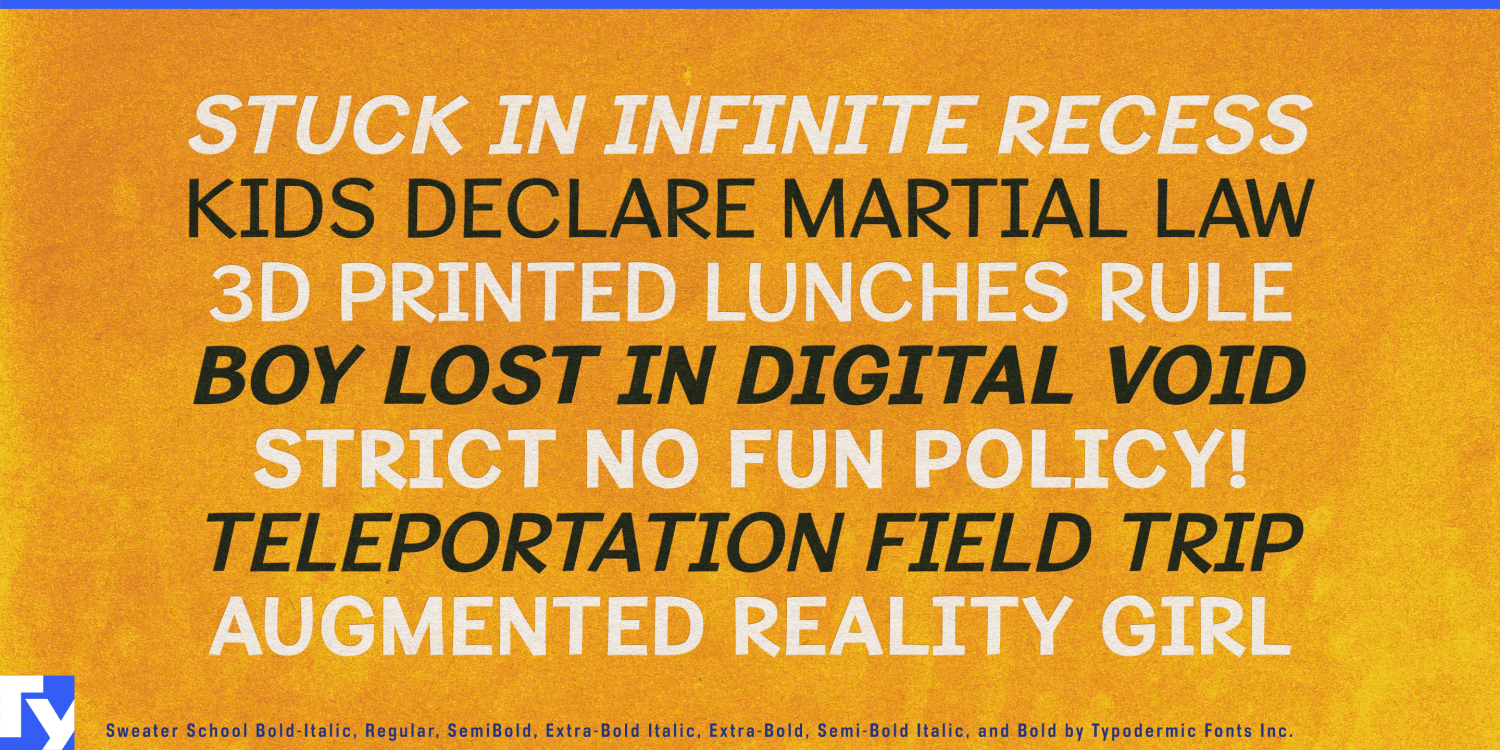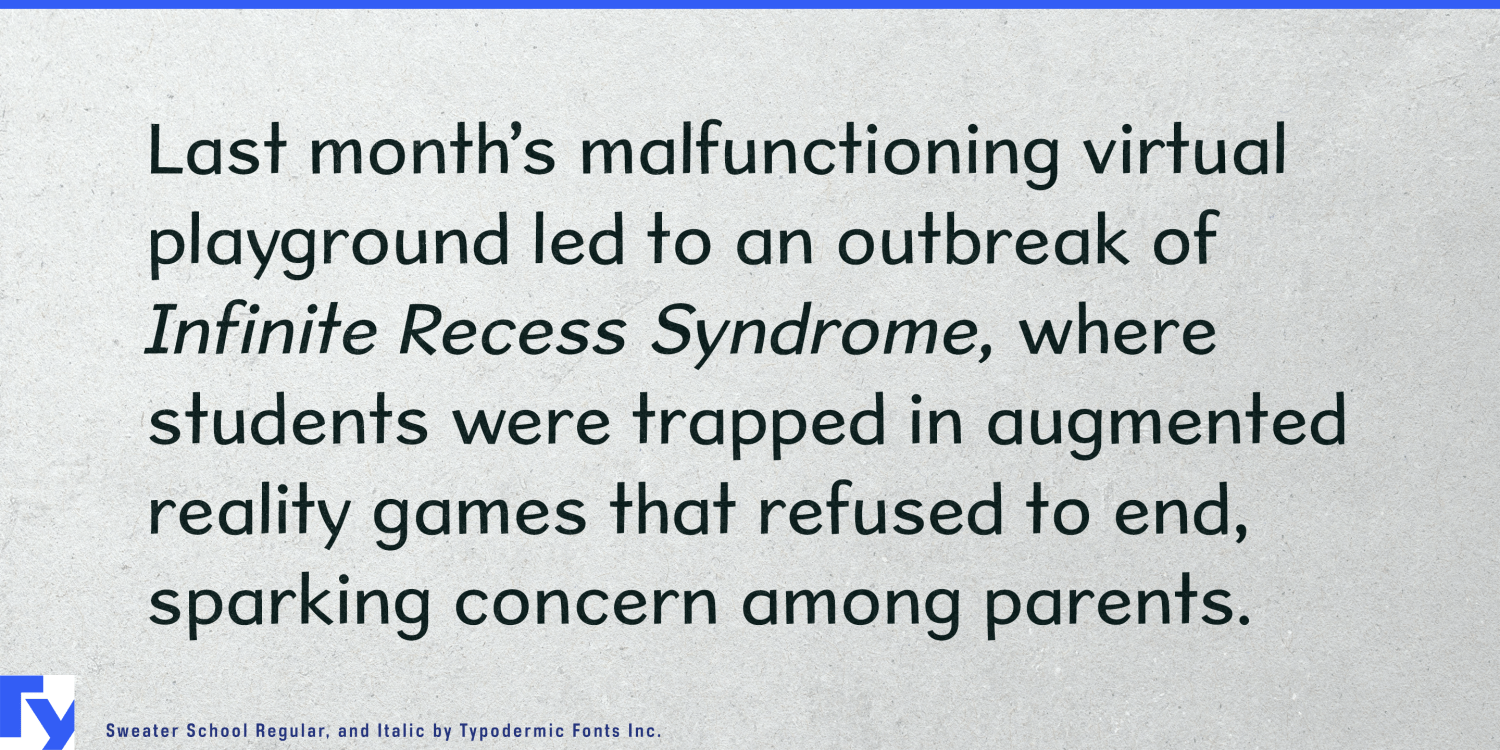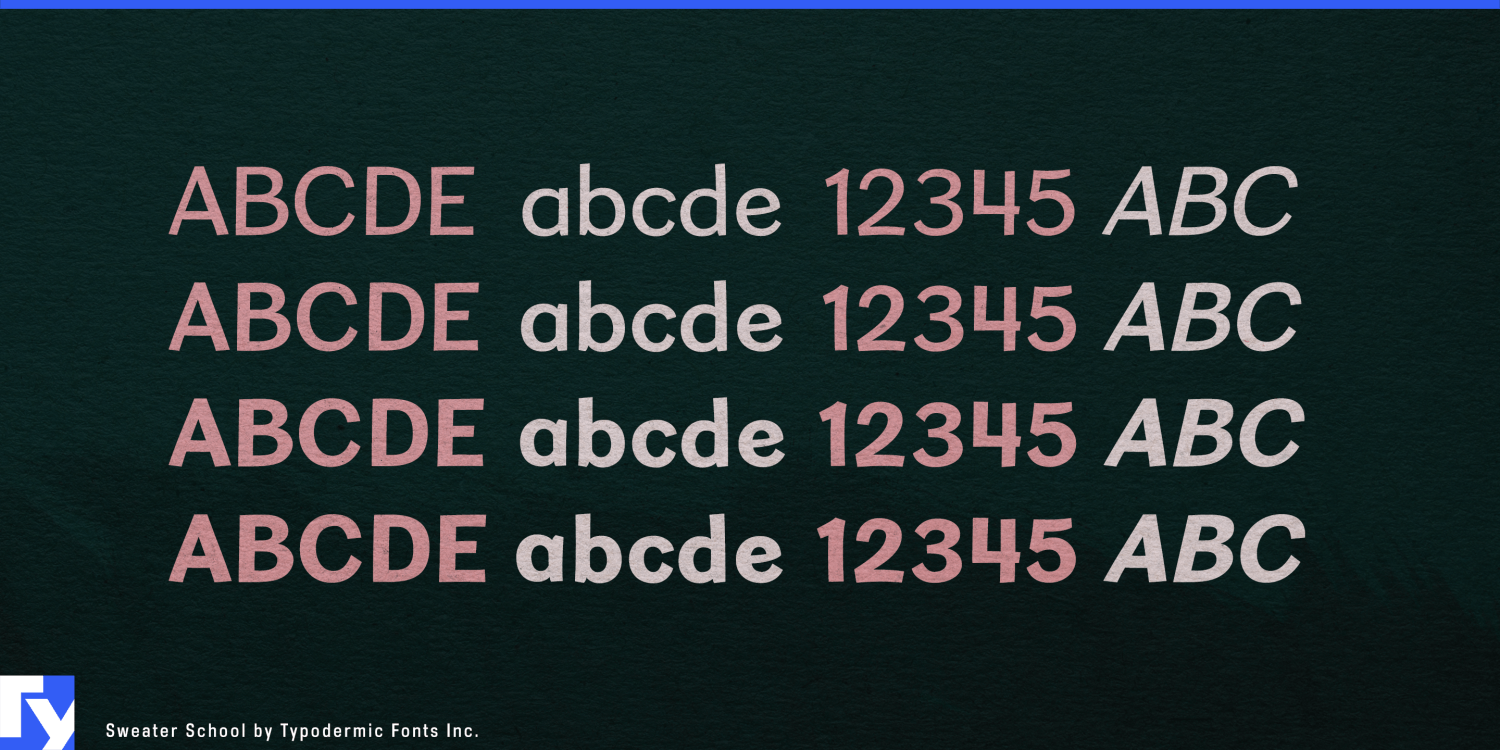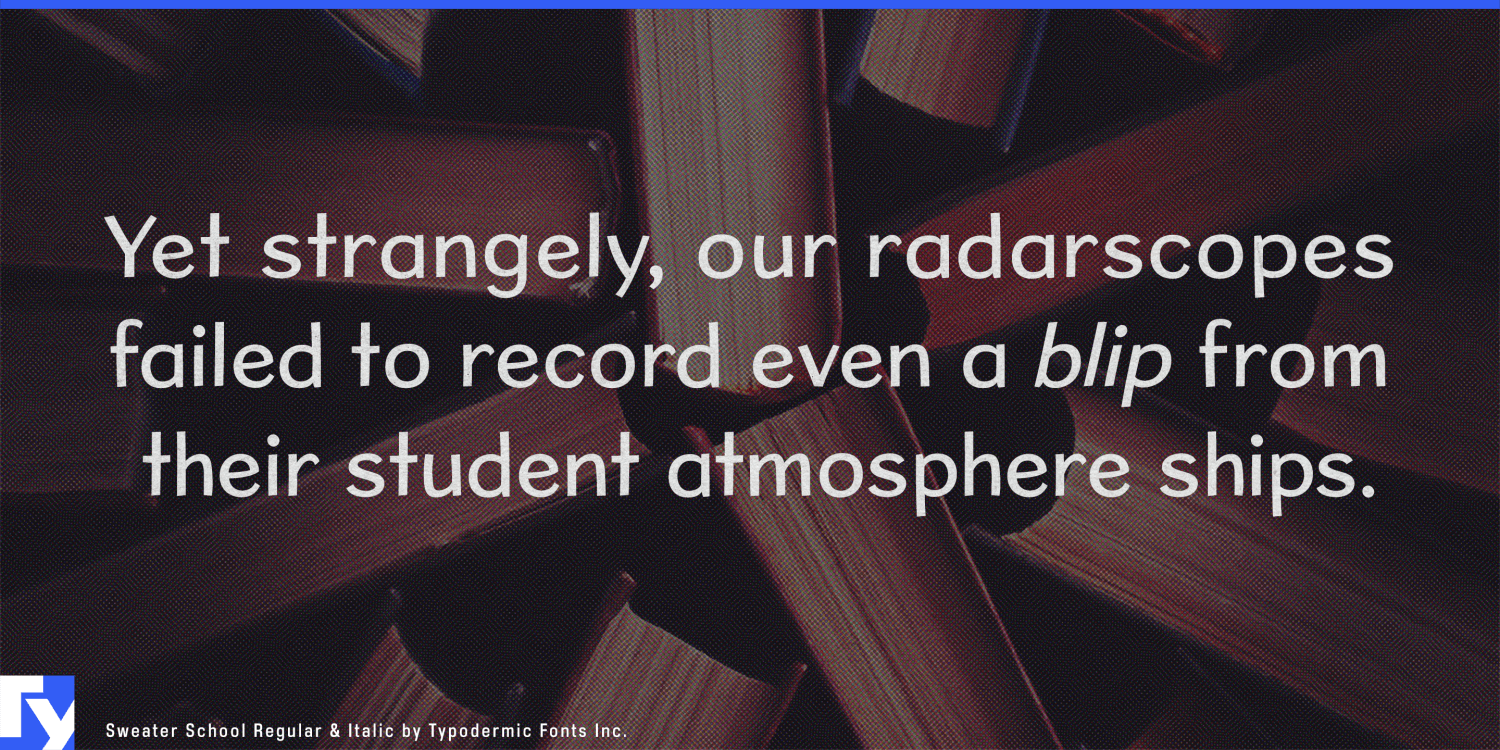
About Sweater School
Wrap your designs in the cozy embrace of Sweater School, a typeface that feels like a warm hug for your eyes. This is a trip down memory lane, evoking the comforting scrawl of your favorite elementary school teacher, but with a postgraduate degree in…